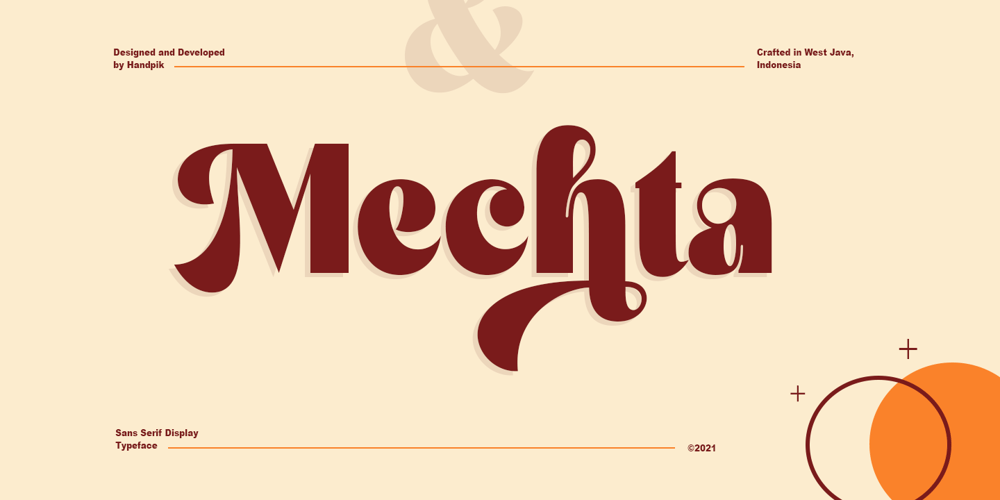
Mechta Font Family was designed by Muhammad Nurapik and published by Handpik. Mechta contains 1 styles and family package options. Hello, this time we want to introduce a new product. namely “Mechta”, a display font that has a classic, feminine and elegant style. very suitable for wedding invitations, branding and other creative products.Feature Uppercase Lowercase Numeral Functional Ligature Stylistic Multilingual